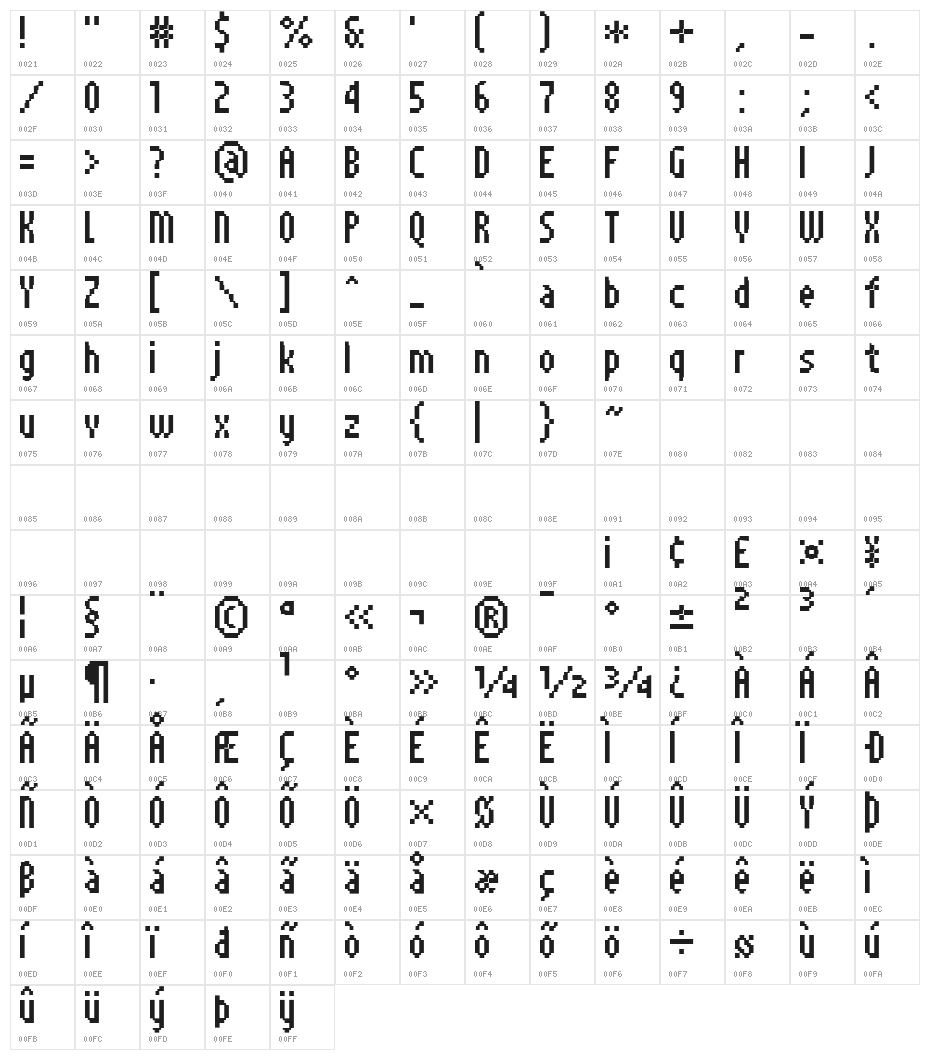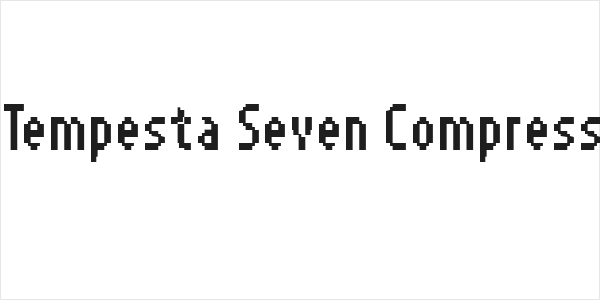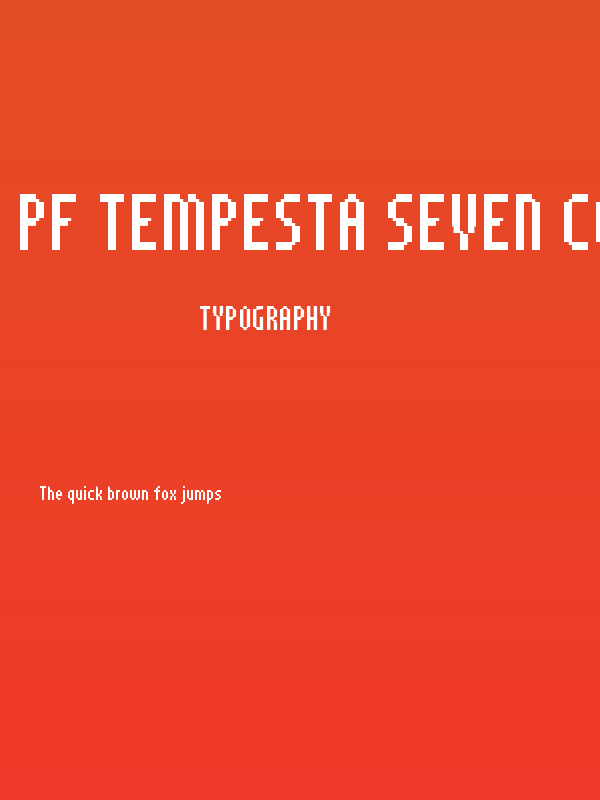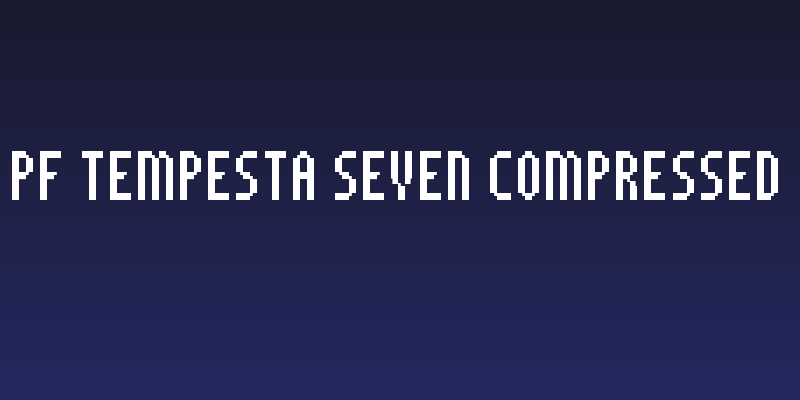
PF Tempesta Seven Compressed Font
PF Tempesta Seven Compressed Description
This font features a bold, pixelated style reminiscent of retro video games and digital displays. The characters are uniformly structured with a blocky appearance, giving it a distinct, geometric look. The uppercase and lowercase letters maintain a consistent height, enhancing its compressed and compact design. Numbers and special characters follow the same pixelated theme, ensuring uniformity across all glyphs. This font's unique style makes it stand out, capturing attention with its nostalgic and digital aesthetic.
| Overall Style | Retro, Digital |
| Proposed Projects | Ideal for video game design, digital art projects, retro-themed posters, and tech-related branding. |